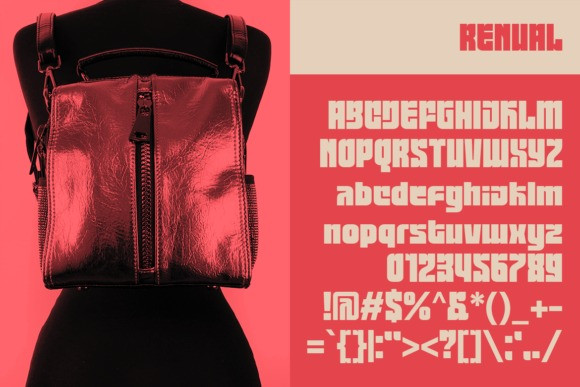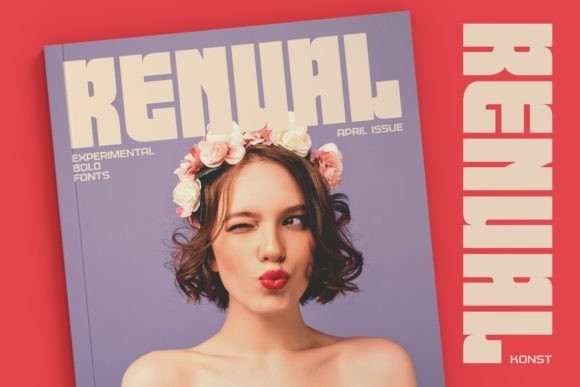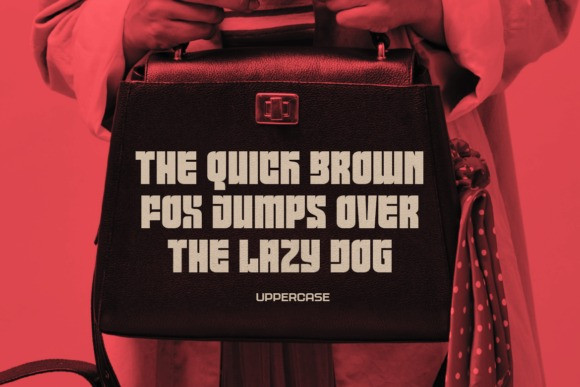
Renual Font
Be bold, loud, and experimental with Renual. Fonts that you rarely see.
Perfectly fit for your urban poster design, Instagram branding, music video, logo, magazine, fashion, album artwork, cover artwork, game design, NFT project, and many more.